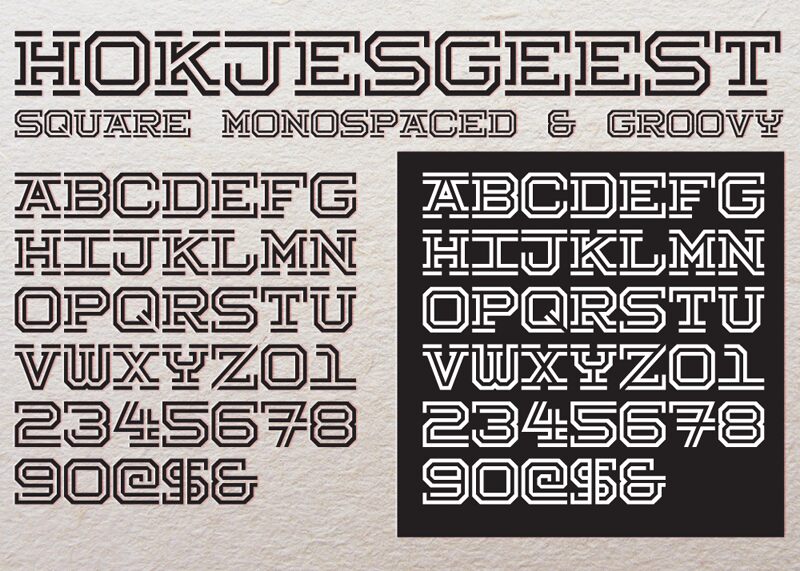
Hokjesgeest
Hokjesgeest font by Tup Wanders is an expanded techno display font that mixes geometric, industrial, and futuristic design elements. Its symmetrical letter shapes are built using circles and rectangles in equal parts giving it a unique appearance that makes it look like nothing you’ve ever used before.